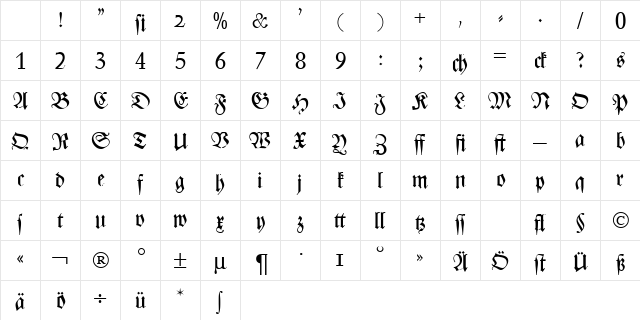
ZenithFraktur DB draws on the rich tradition of blackletter calligraphy, with dense, angular strokes that evoke medieval manuscripts and old-world craftsmanship.
Font Pairing: Pair with a clean neutral sans-serif for body copy to let ZenithFraktur DB's character lead without overwhelming the composition.
Pro Tip: Reserve ZenithFraktur DB for display and logo use - pair it with a clean sans-serif for body copy to prevent the composition from feeling oppressive.